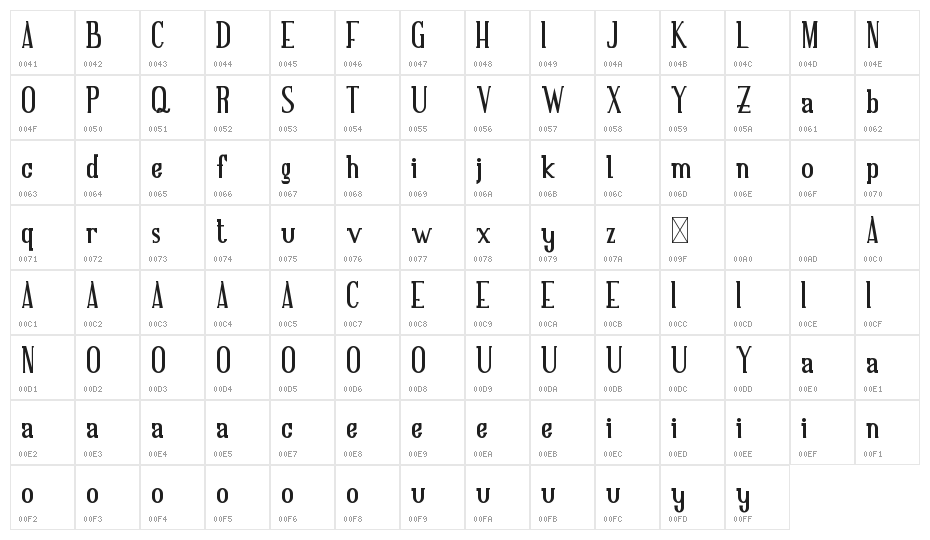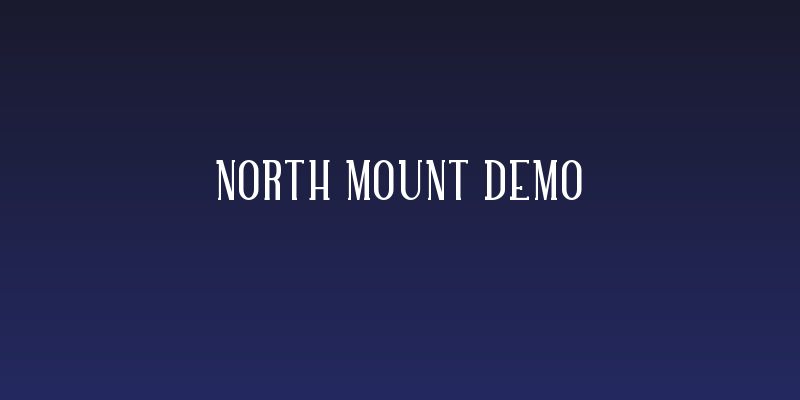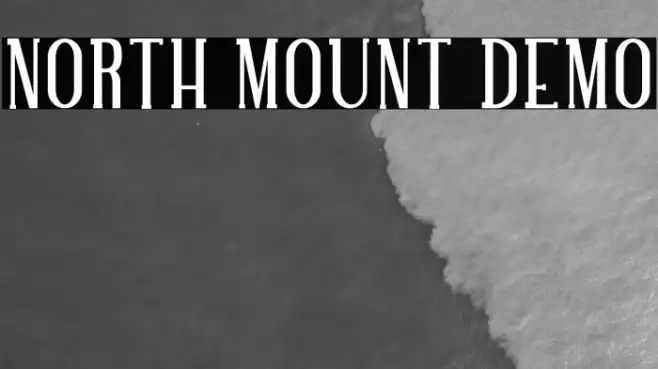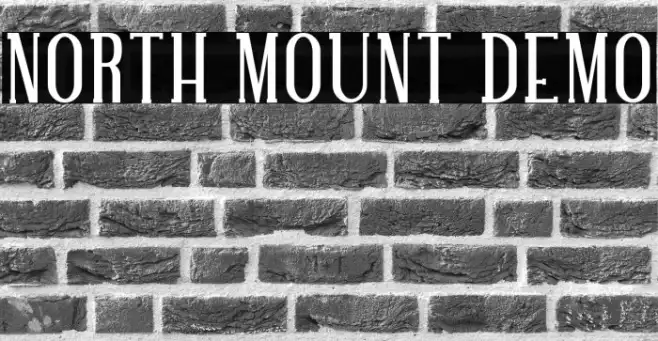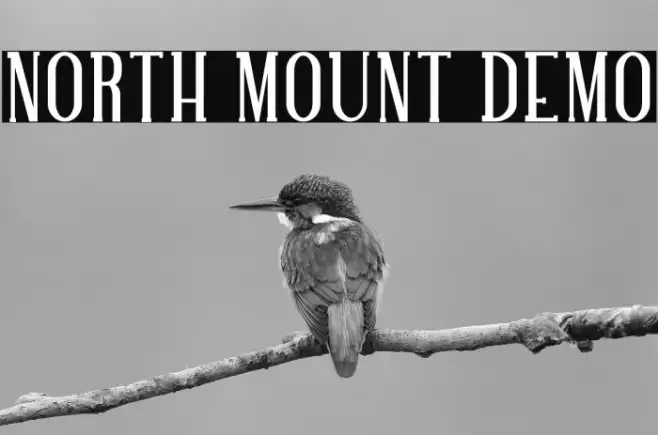
NORTH MOUNT DEMO Font
NORTH MOUNT DEMO Description
This font features a bold and striking design with a vintage flair. The uppercase letters are tall and narrow, with a distinct serif that adds a touch of elegance. The lowercase letters maintain a consistent style, with unique curves and angles that give them character. The numbers are clear and easy to read, matching the overall aesthetic of the alphabet. Special characters are designed to complement the letters, maintaining the same bold and vintage style. This font is perfect for projects that require a strong, impactful look with a hint of nostalgia.
| Proposed Projects | Ideal for branding, poster design, and vintage-themed projects. |